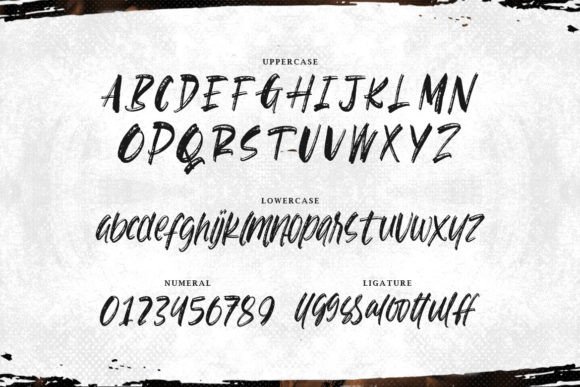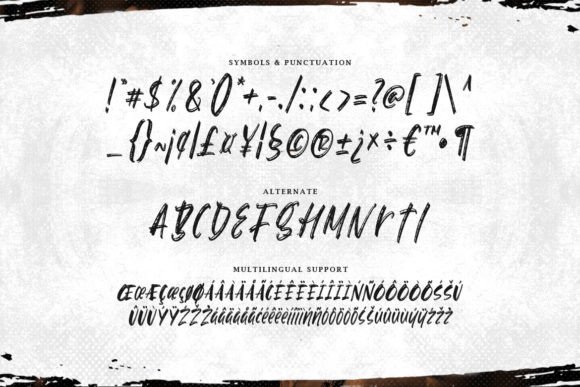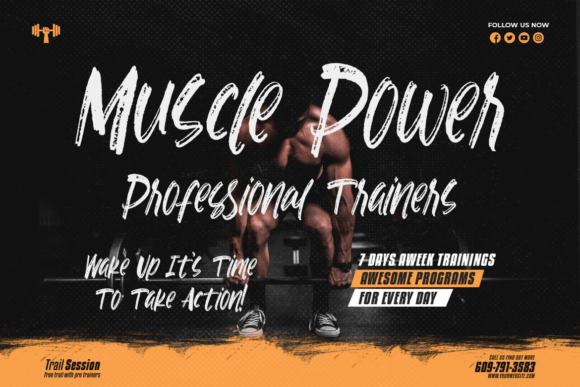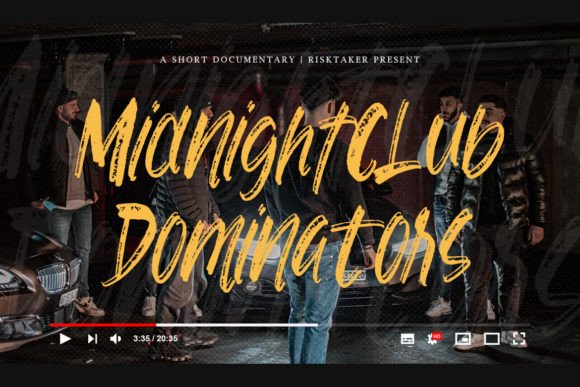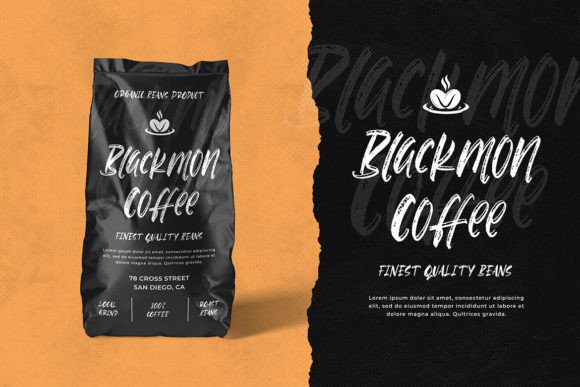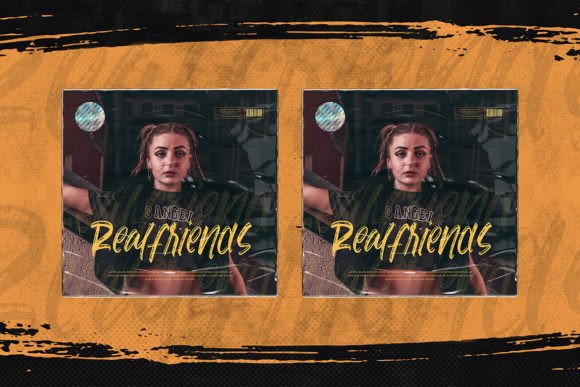
Introduction to Risk Taker Font
Embrace boldness with “Risk Taker” – a rough brush font that defies conventions and adds a daring edge to your designs.
Embrace the untamed spirit of “Risk Taker” as it transforms your projects with a dash of attitude Whether you’re crafting daring album covers, urban street art, captivating headlines, or edgy social media graphics, this font will captivate your audience with its rough and fearless style.
Key Features of Risk Taker Font
Why Choose Risk Taker Font?
Risk Taker Font offers exceptional quality and versatility, making it a valuable addition to your design toolkit. Whether you’re creating for personal projects or commercial use, Risk Taker Font delivers professional results.